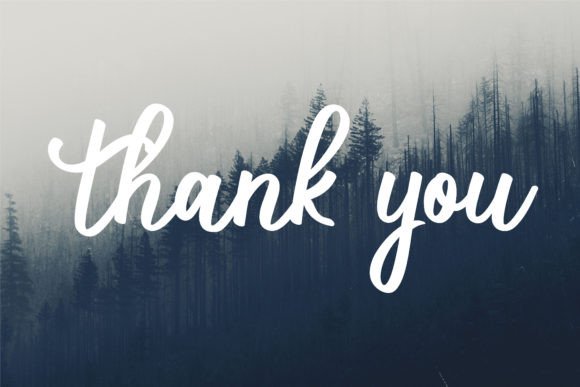
Santiago Font
Introducing Santiago, a true masterpiece among handwritten script fonts. Santiago was crafted with authentic penmanship at its core – it brings a sense of warmth and realness unmatched by other typefaces. It infuses depth and character into wall displays, turning every wedding invitation it graces into a bespoke piece of art. When used for social media post logos or advertisements, Santiago’s stylish strokes command attention and evoke responses. It enhances product packaging, infuses life into product designs, and defines labels with unparalleled elegance. The versatile Santiago is also effective in enhancing the emotionality of photography through watermarks.